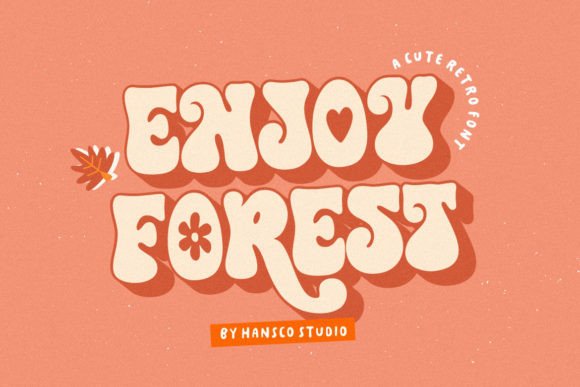
Introducing Enjoy Forest Font: Elevate Your Designs with a Retro Serif and Bold Display Font
Are you tired of using the same old fonts in your designs? Do you want to add a touch of uniqueness and personality to your creative projects? Look no further than Enjoy Forest Font, a stunning retro serif and bold display font that’s sure to make your designs stand out. In this article, we’ll dive into the features and benefits of Enjoy Forest Font, and explore how you can use it to take your designs to the next level.
What is Enjoy Forest Font?
Enjoy Forest Font is a beautifully crafted retro serif and bold display font that’s perfect for designers and crafters looking to add a touch of nostalgia and sophistication to their work. With its unique blend of classic and modern elements, Enjoy Forest Font is sure to grab attention and leave a lasting impression.
Key Features of Enjoy Forest Font
- Retro Serif Style: Enjoy Forest Font features a classic retro serif style that’s reminiscent of vintage typography. Its elegant and refined lines make it perfect for use in a variety of design projects, from logos and branding to packaging and advertising.
- Bold Display Font: With its bold and eye-catching design, Enjoy Forest Font is perfect for use in headlines, titles, and other display text. Its confident and assertive style is sure to grab attention and draw the eye.
- Unique Character Set: Enjoy Forest Font features a unique character set that’s full of personality and charm. From its elegant letters to its stylish numbers and punctuation, every character is carefully crafted to ensure that your designs look their best.
Benefits of Using Enjoy Forest Font
So why should you choose Enjoy Forest Font for your next design project? Here are just a few benefits of using this amazing font:
- Adds Personality to Your Designs: With its unique and stylish design, Enjoy Forest Font is the perfect way to add personality and charm to your designs. Whether you’re working on a logo, brochure, or website, this font is sure to make your project stand out.
- Perfect for Display Text: Enjoy Forest Font is specifically designed for use in display text, making it perfect for headlines, titles, and other prominent text. Its bold and eye-catching design is sure to grab attention and draw the eye.
- Versatile and Flexible: Enjoy Forest Font is incredibly versatile and flexible, making it perfect for use in a wide range of design projects. From elegant and refined designs to bold and edgy projects, this font can handle it all.
- High-Quality Design: Enjoy Forest Font is designed to the highest standards, with a focus on quality and attention to detail. Its elegant lines, precise curves, and stylish character set make it a joy to work with.
How to Use Enjoy Forest Font
Using Enjoy Forest Font is easy! Here are a few tips to get you started:
- Pair it with Other Fonts: Enjoy Forest Font looks great when paired with other fonts, particularly sans-serif fonts like Arial or Helvetica. Experiment with different combinations to find the perfect look for your design.
- Use it for Display Text: Enjoy Forest Font is specifically designed for use in display text, so don’t be afraid to use it for headlines, titles, and other prominent text.
- Experiment with Colors and Textures: Enjoy Forest Font looks great in a variety of colors and textures, so don’t be afraid to experiment and find the perfect look for your design.
| Font Name | Enjoy Forest Font |
| Author | HansCo |
Enjoy Forest Font is a stunning retro serif and bold display font that’s perfect for designers and crafters looking to add a touch of uniqueness and personality to their work. With its elegant lines, precise curves, and stylish character set, this font is sure to make your designs stand out. Whether you’re working on a logo, brochure, or website, Enjoy Forest Font is the perfect choice. So why wait? Download Enjoy Forest Font today and start creating amazing designs!